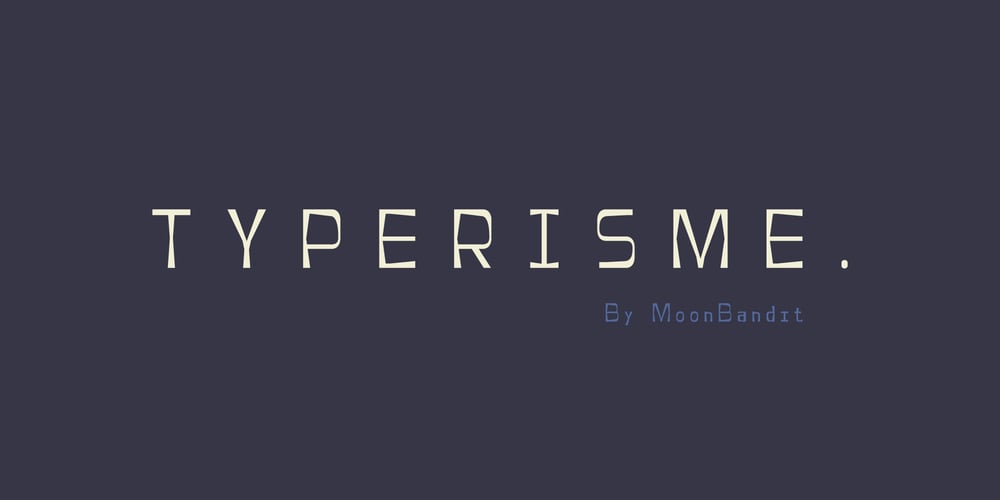
MBF Typerisme Font Family was designed by Bramaji Dipa Manggala and published by Moonbandit. MBF Typerisme contains 1 styles and family package options. Moonbandit proudly presents, Typerisme. The modern take on the typewriter font. This typeface is perfect for your old, retro, vintage distressed look without going overboard. Huge kerning to boost clarity. Use it for body text, headline, title, one liner, anything! this typeface is versatile.